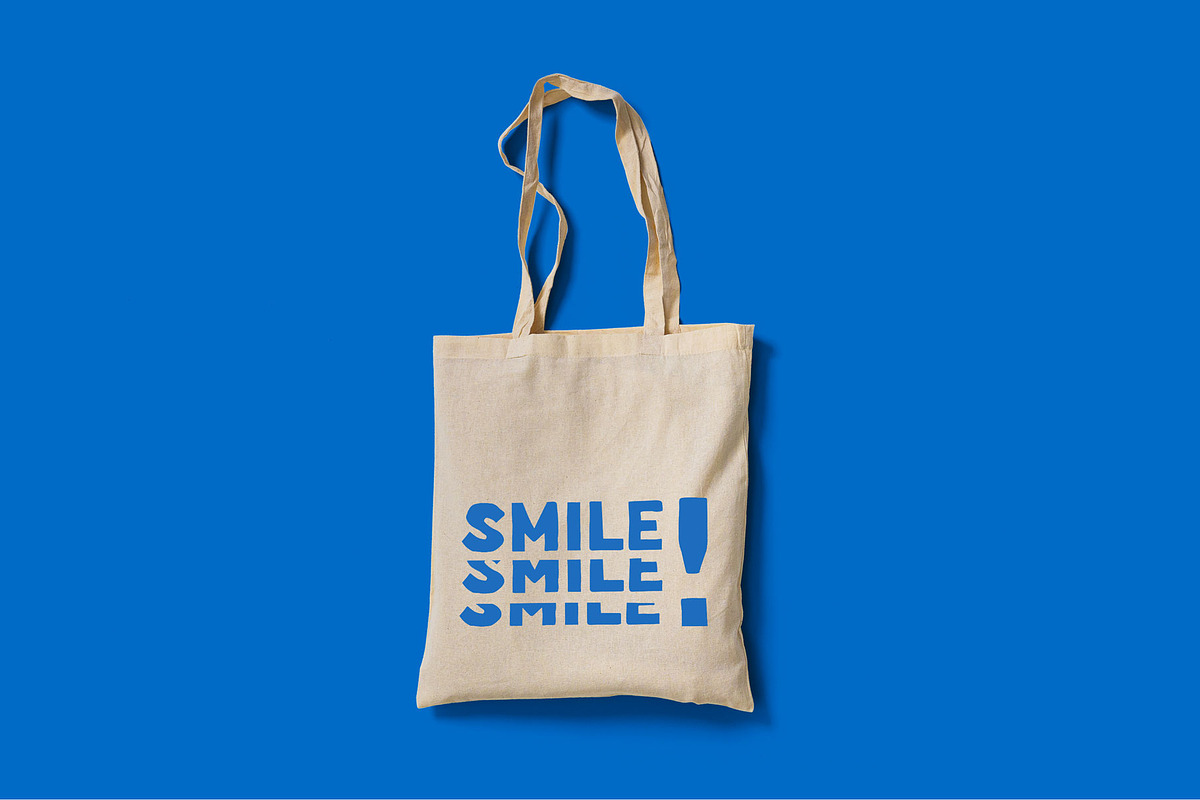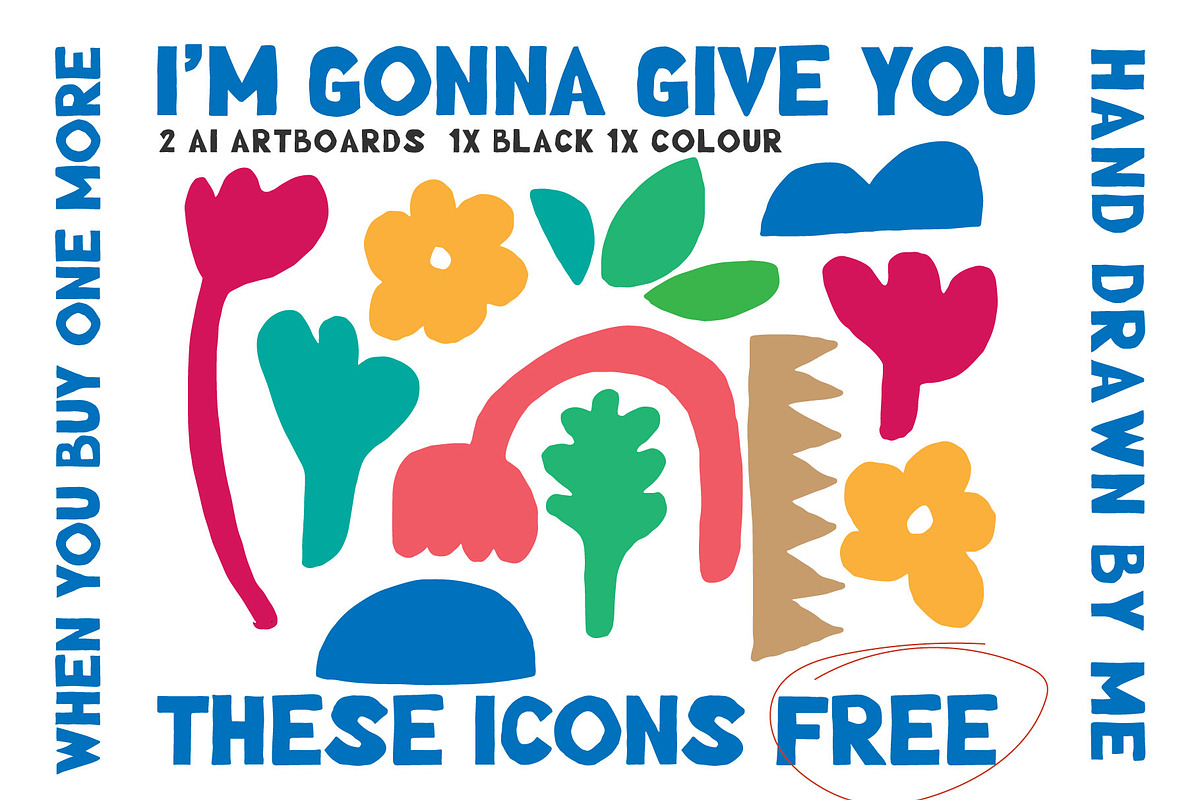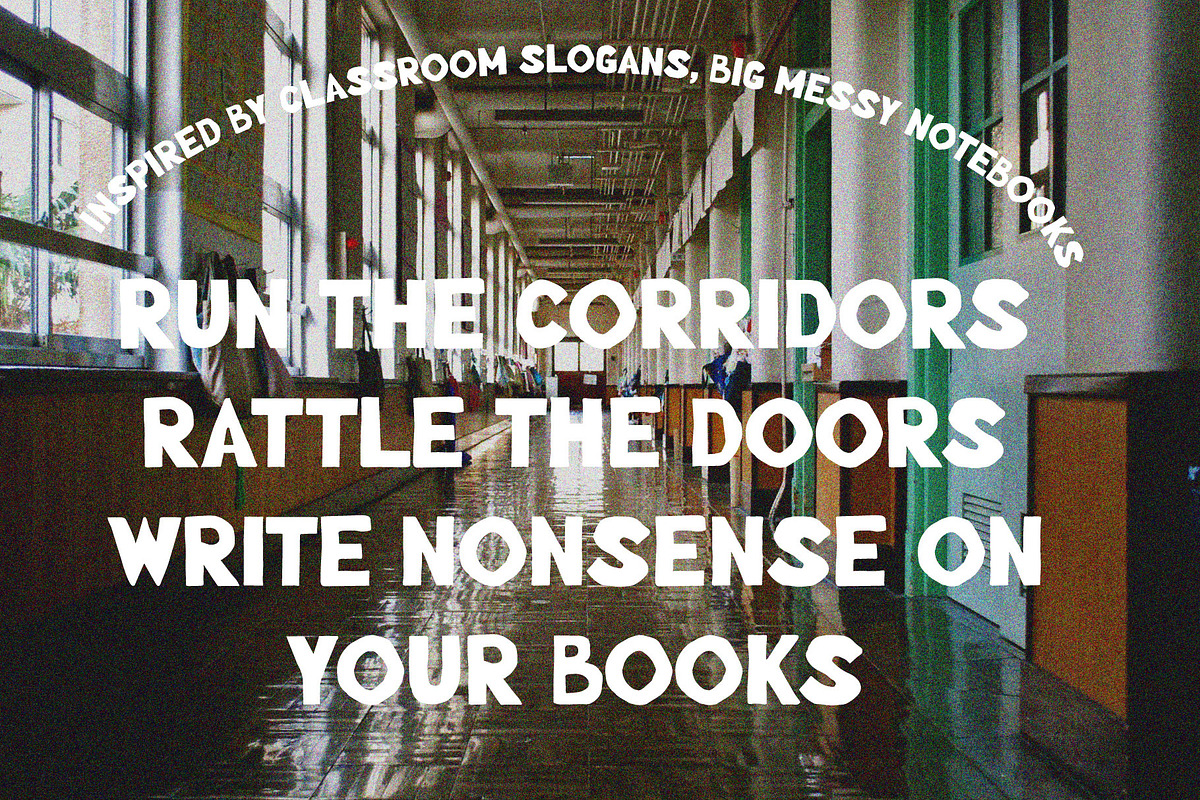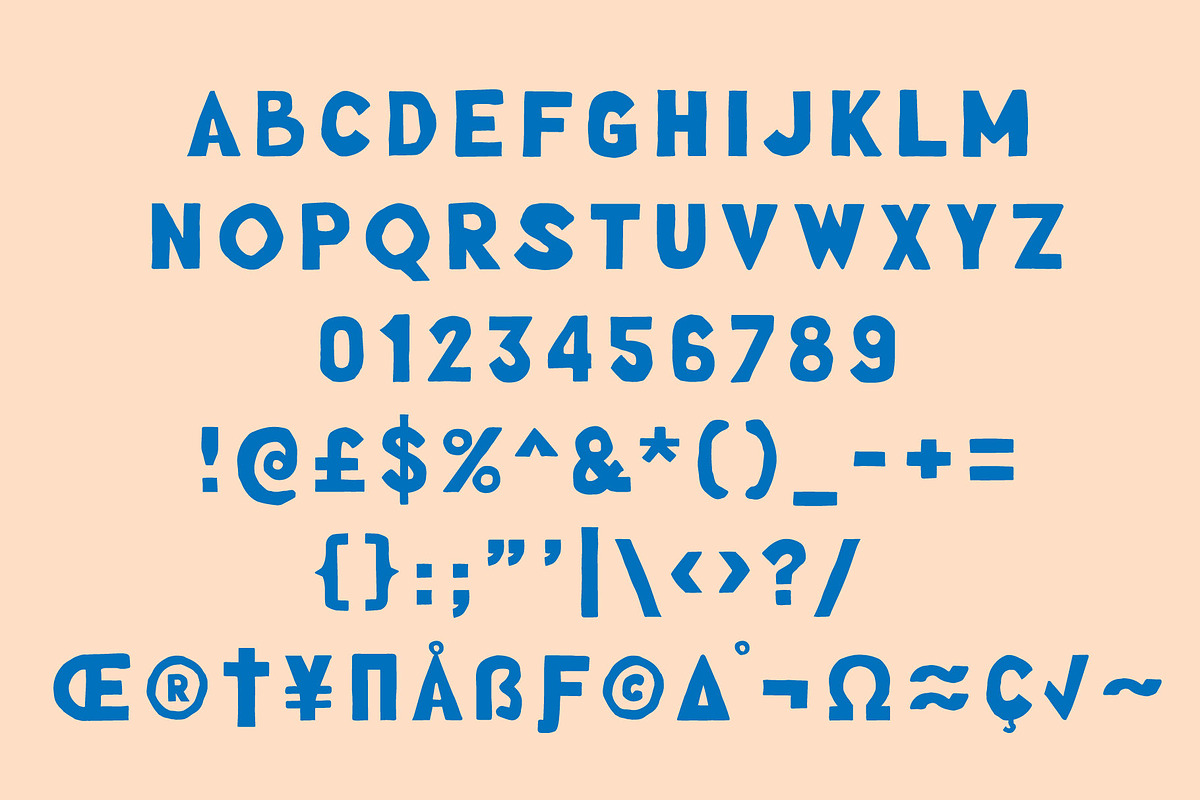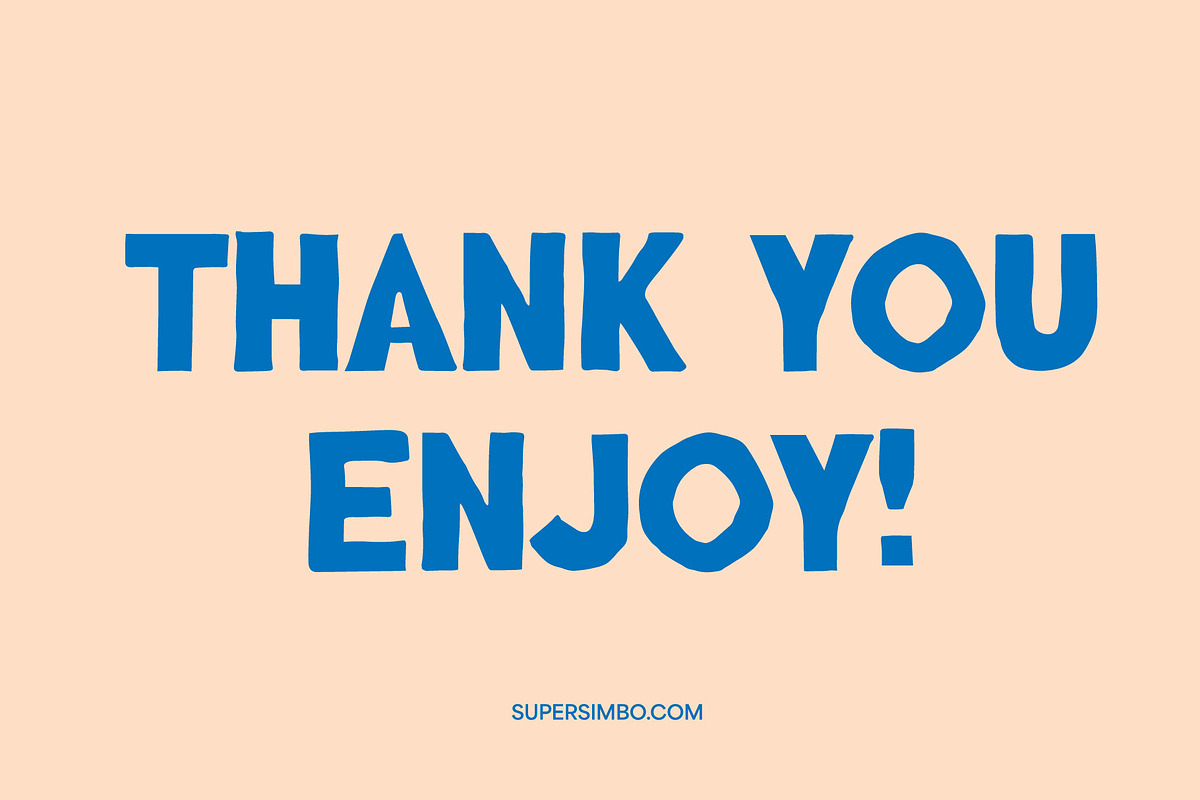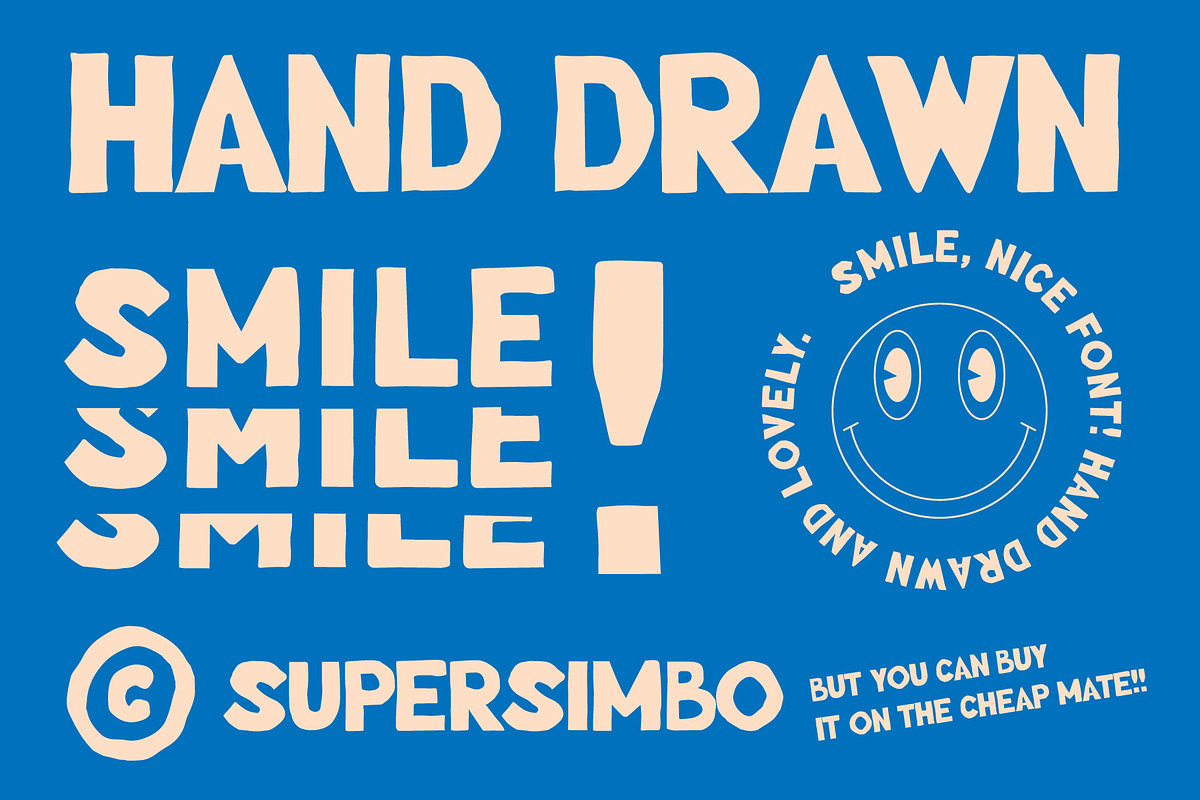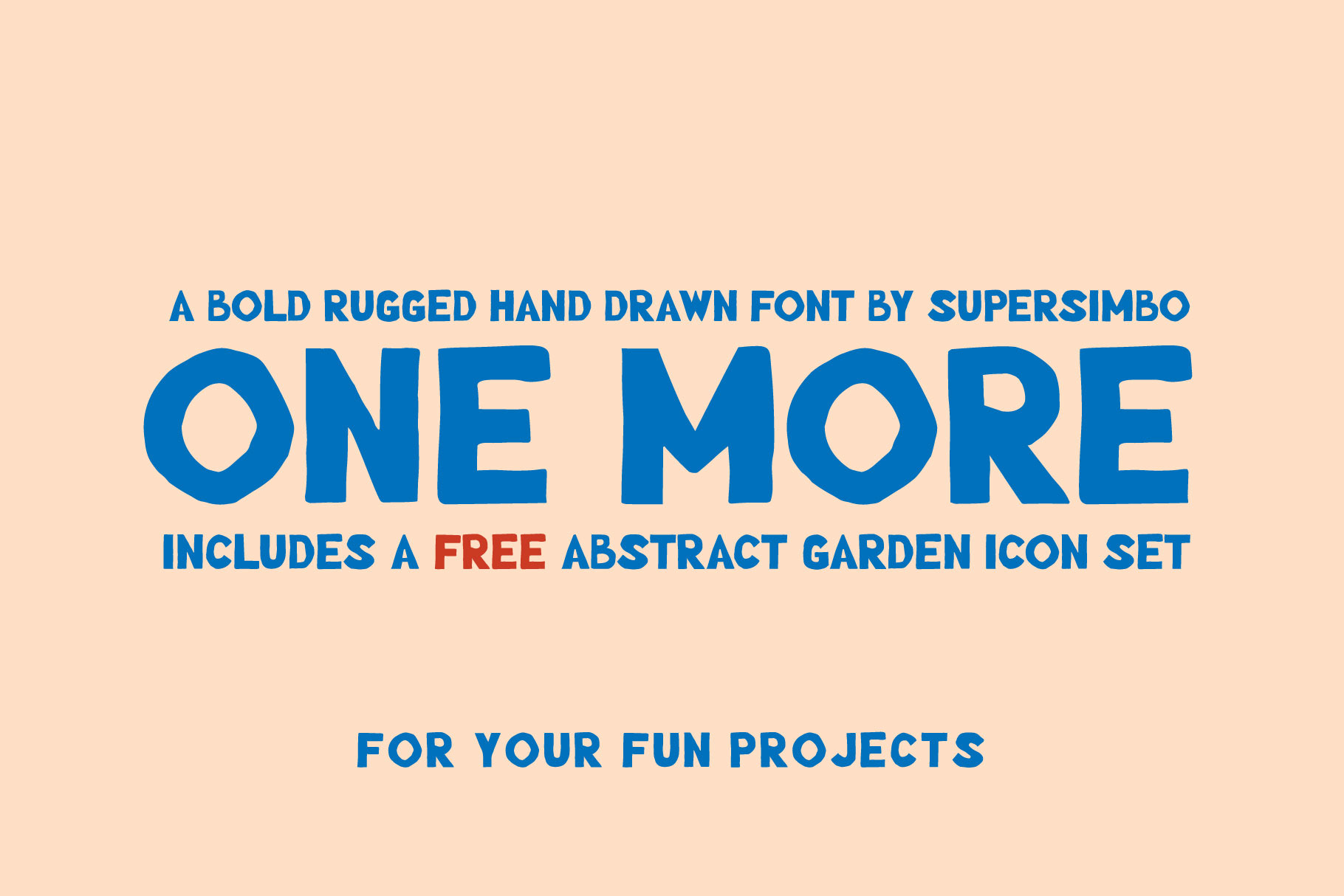
One More | Hand drawn font
You need one more font. This is it. Trust me. Inspired by classroom slogans, big messy notebooks and the shape of a Fox's Classic Biscuit (sort of). Hand drawn, rugged + created by a shaky hand but one to make you smile.
Uppercase, numbers and glyphs. This is it, trust me. Thank you. Enjoy.